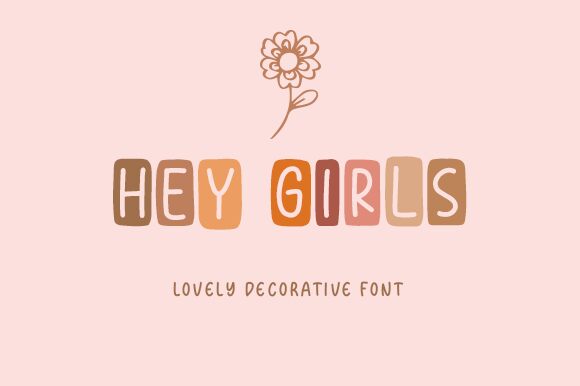
Hey Girls
Hey Girls font by Graphix Line Studio is a striking display typeface that's perfect for all your creative projects. With its unique decorative style and semi-light weight, it will add a touch of elegance and charm to any design. The condensed width of the font makes it perfect for headlines, posters, logos, packaging, and more. This versatile typeface can be used in various projects such as fashion branding, beauty products packaging design or even in social media graphics. Hey Girls font is sure to make your designs stand out from the crowd with its playful yet sophisticated appeal.